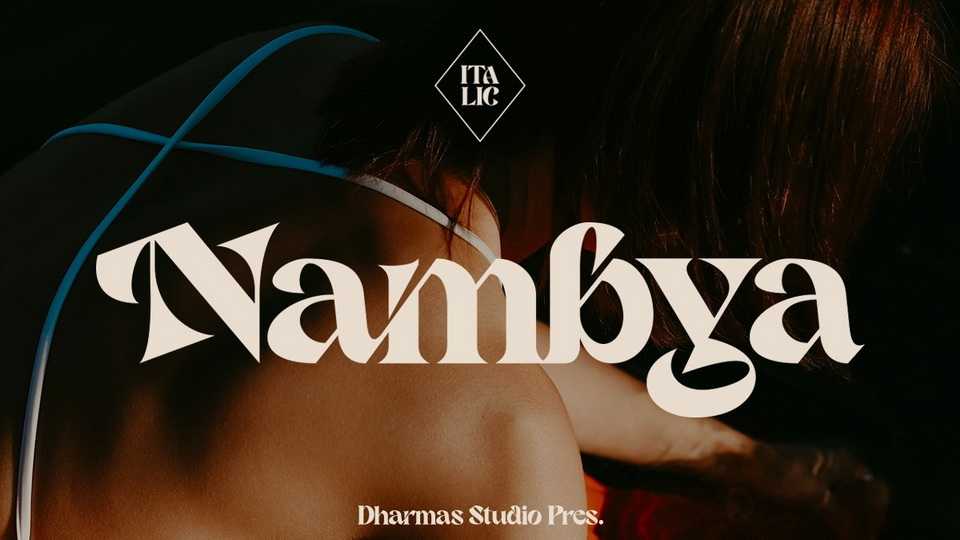
Download Nambya font, an experimental serif typeface with a sharp look. Nambya is a fearless and chic typeface perfect for big headlines for both print and web.